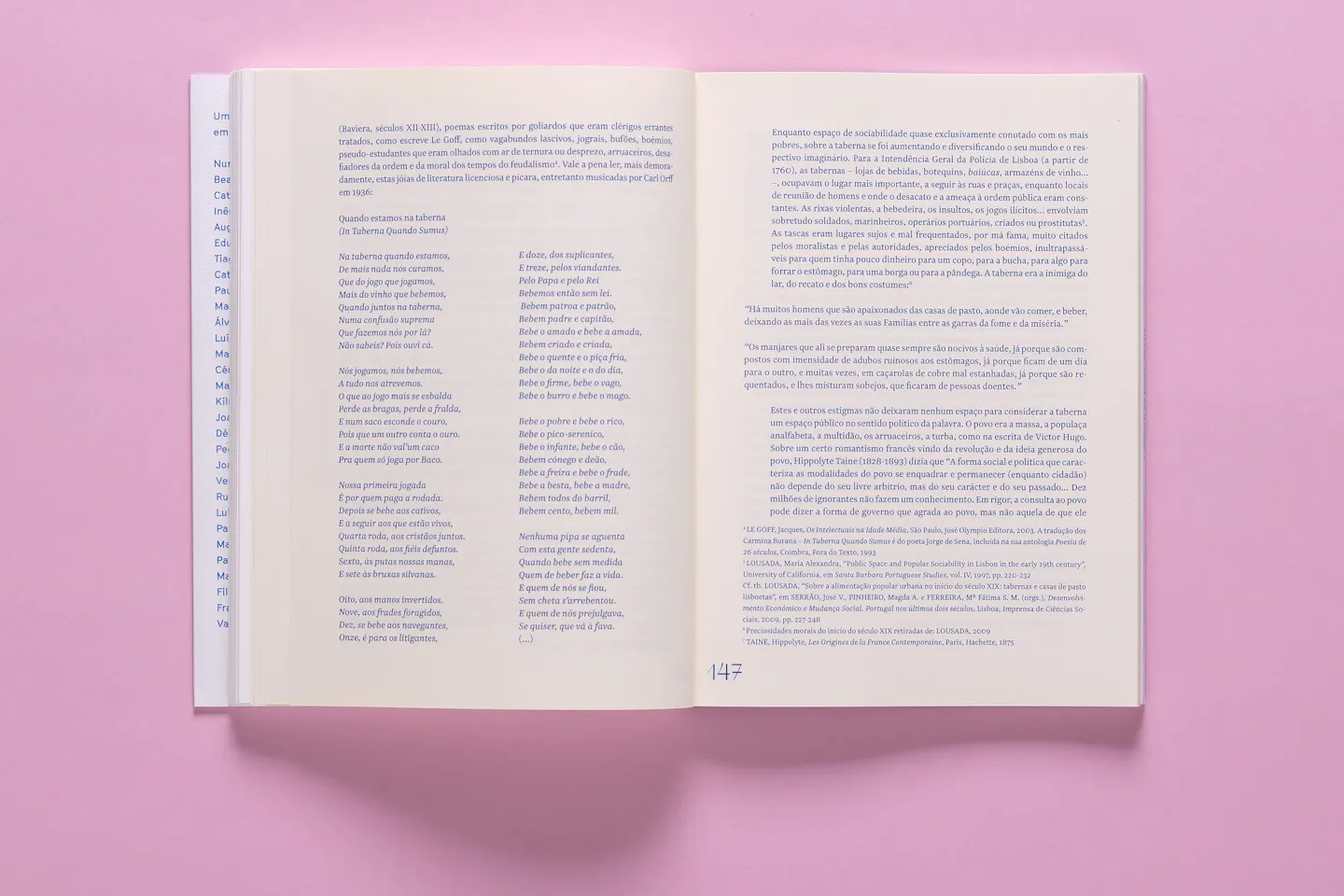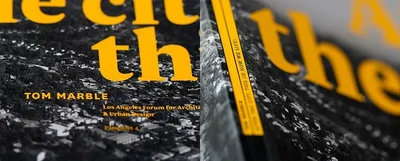
Blanco vs Newzald
Blanco and Newzald are both serif typefaces sharing a editorial foundation. The two share 80% design similarity overall. Compare which suits your Editorial project.
Recommended: Blanco
- elegant design character
- Suited for Books and Web
- From milieu-grotesque
Consider: Newzald
- Suited for Newspapers and Publishing
- From klim-type-foundry